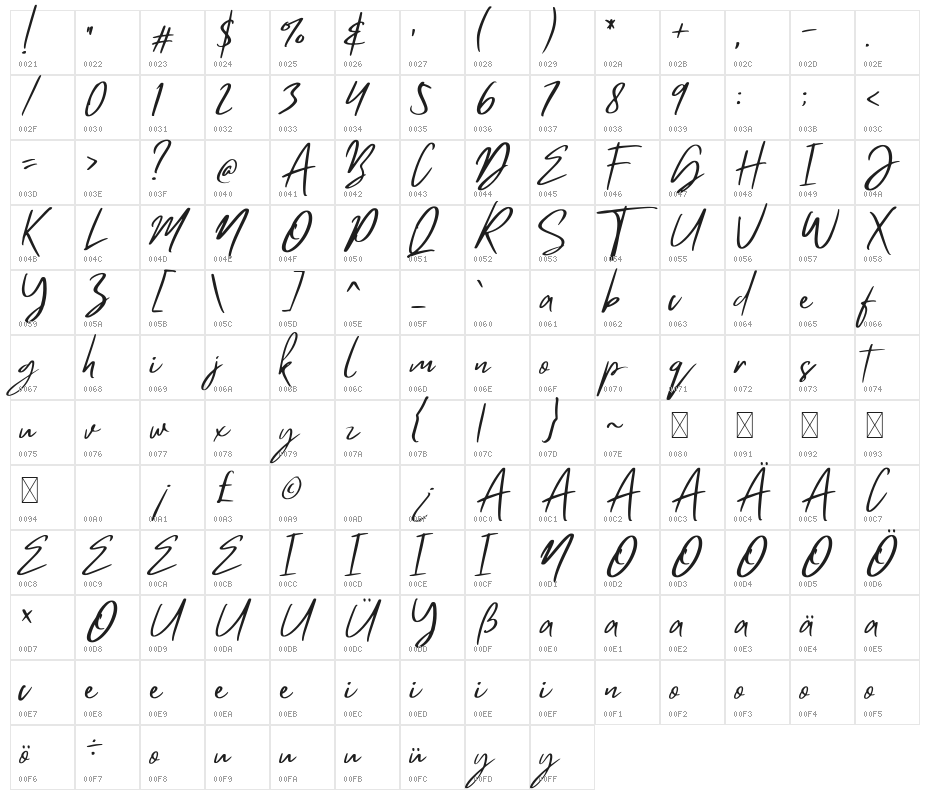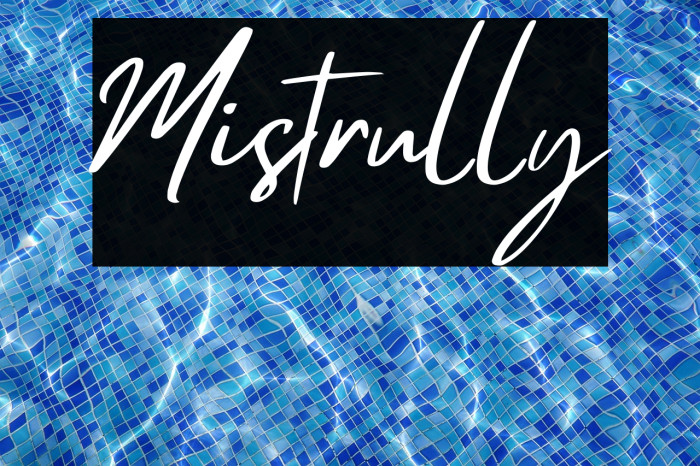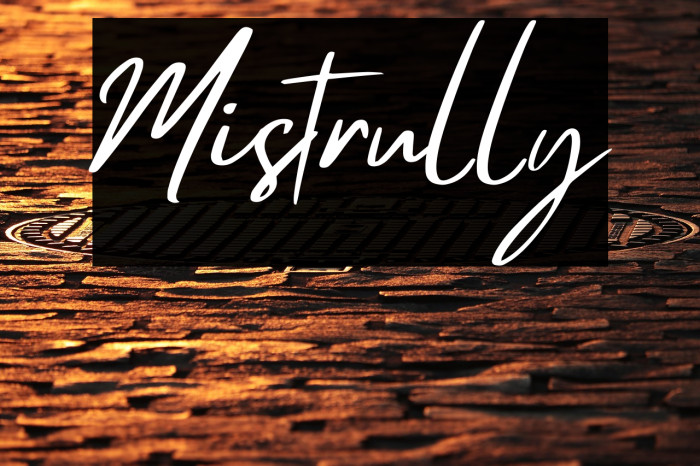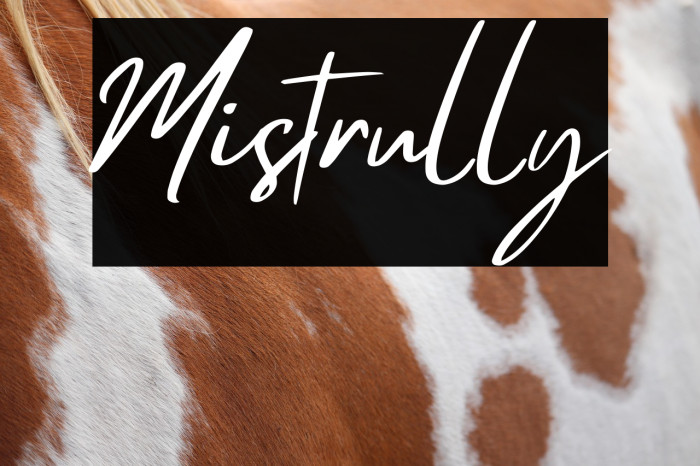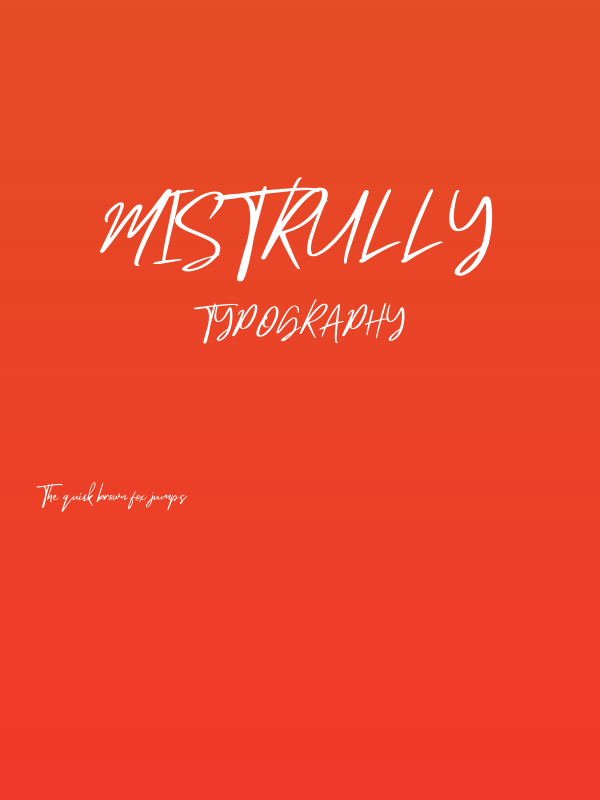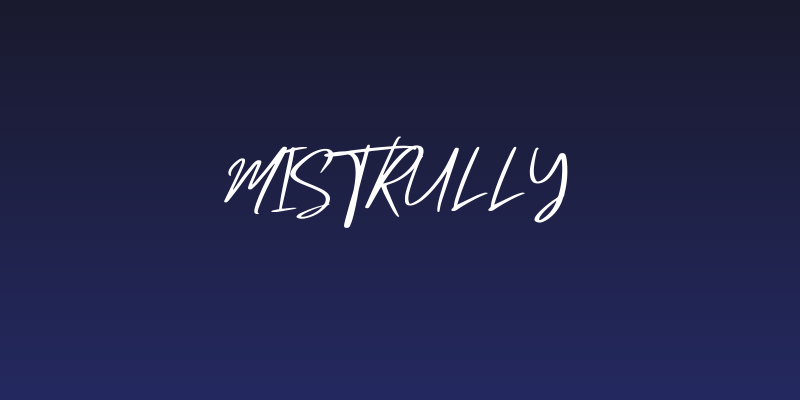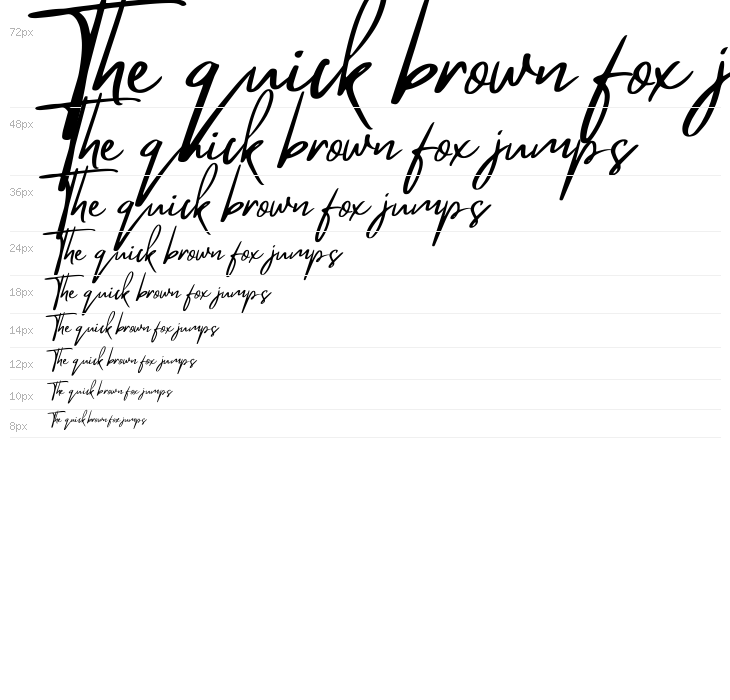
Mistrully Font
Mistrully Description
This font exudes a lively and dynamic energy with its fluid, handwritten style. The characters are elegantly crafted with a natural flow, mimicking the strokes of a calligraphy pen. Each letter has a unique flair, with varying heights and slants that add to its expressive nature. The uppercase letters are bold and prominent, while the lowercase letters maintain a consistent rhythm, creating a harmonious balance. The numbers and special characters are equally expressive, maintaining the overall aesthetic. This font is perfect for projects that require a personal touch, such as invitations, greeting cards, or artistic branding.
| Proposed Projects | Ideal for invitations, greeting cards, artistic branding, and personal projects. |